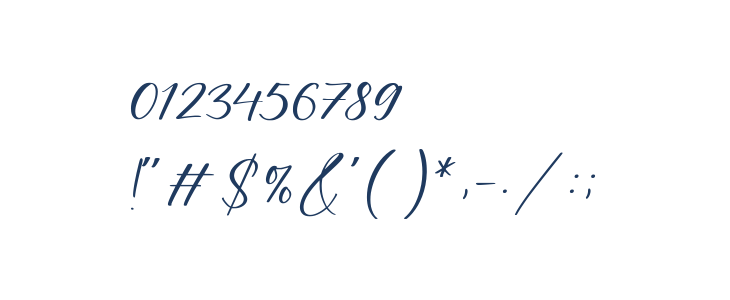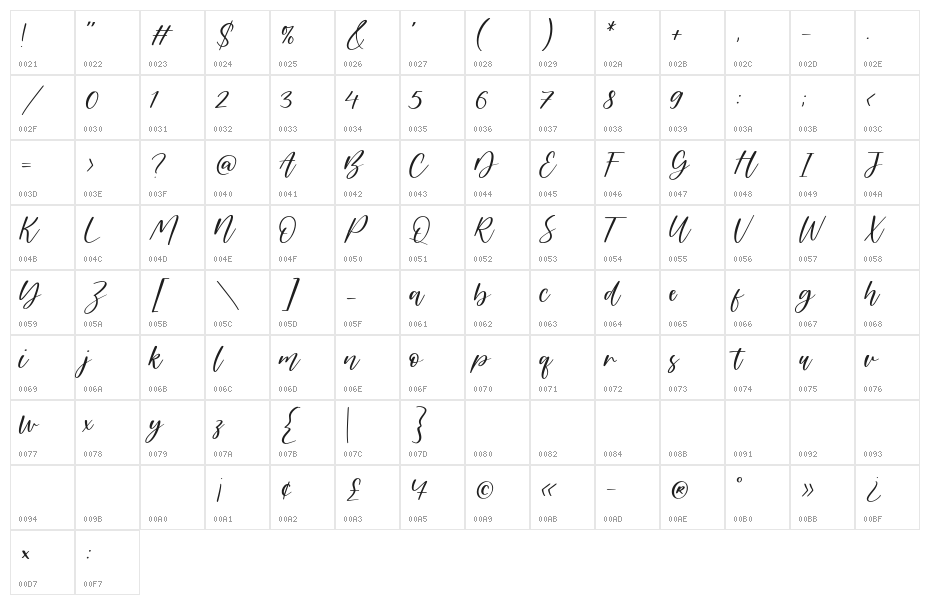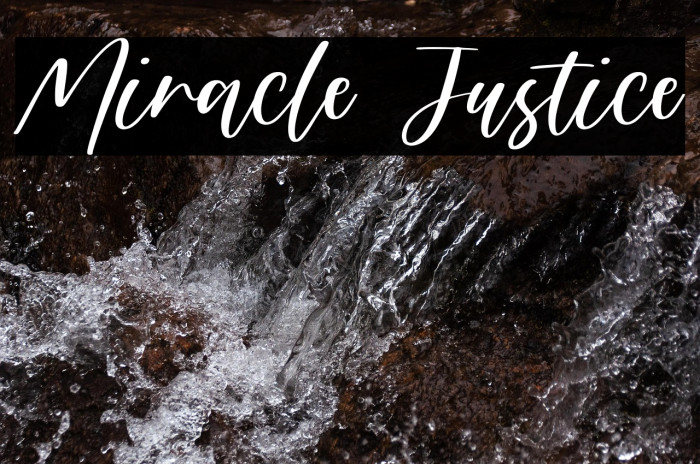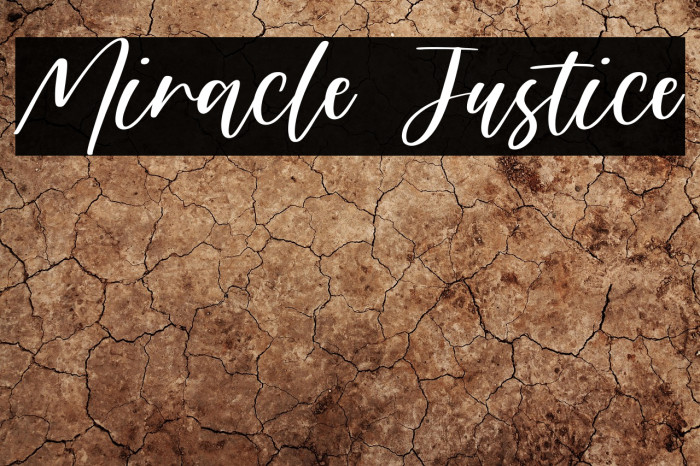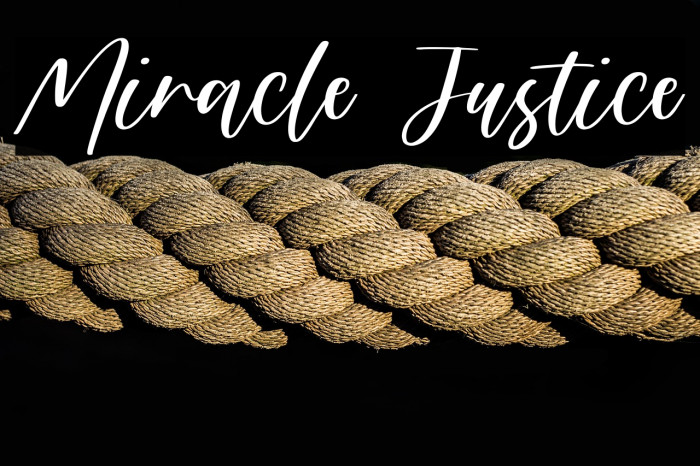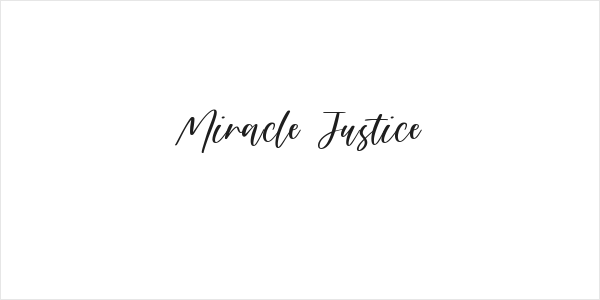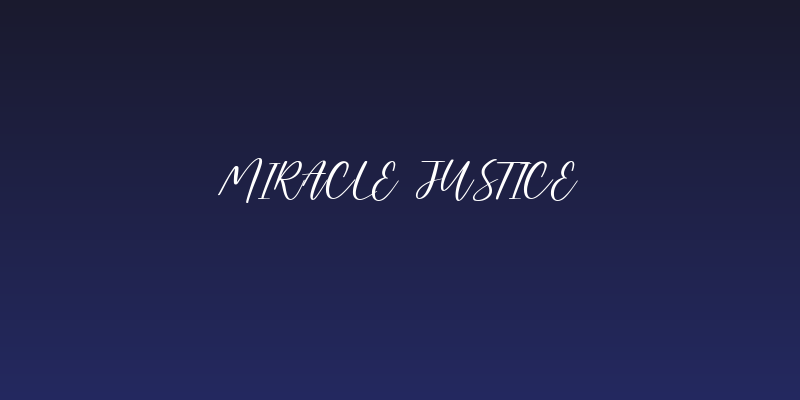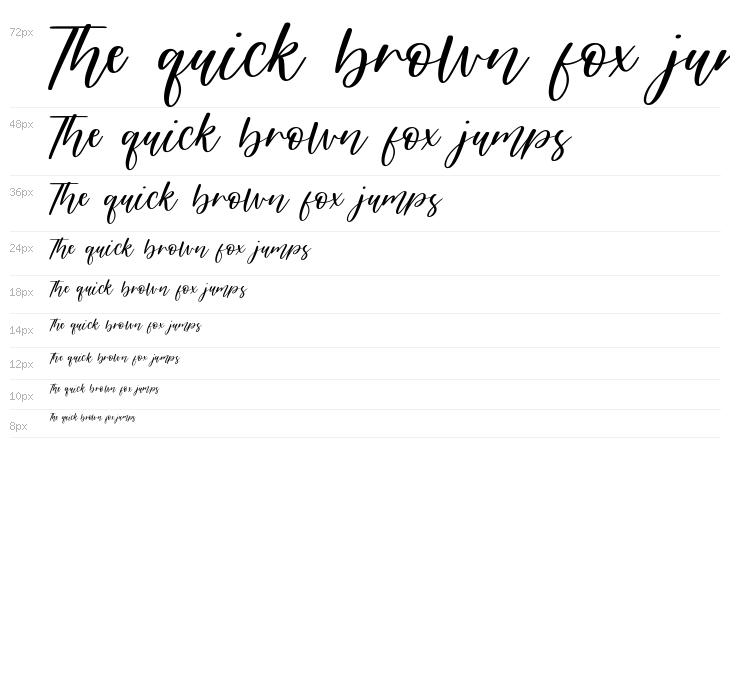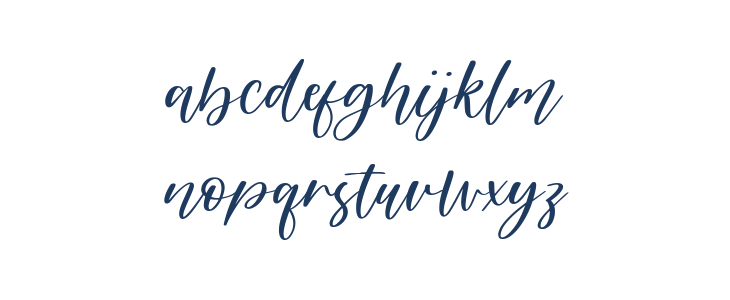
Miracle Justice Font
Miracle Justice Description
This font exudes a modern and elegant script style, characterized by its flowing, cursive letters that mimic the fluidity of handwriting. The uppercase letters are tall and slightly slanted, adding a touch of sophistication and grace. The lowercase letters maintain a consistent flow, with smooth connections between characters, enhancing readability while preserving an artistic flair. The numerals are styled to match the cursive nature, ensuring a cohesive look across all characters. Special characters are thoughtfully designed to complement the overall aesthetic, making this font versatile for various design needs.
| Use Case | Logos, Invitations, Branding |
| Proposed Projects | Ideal for wedding invitations, branding projects, greeting cards, and elegant logo designs. |